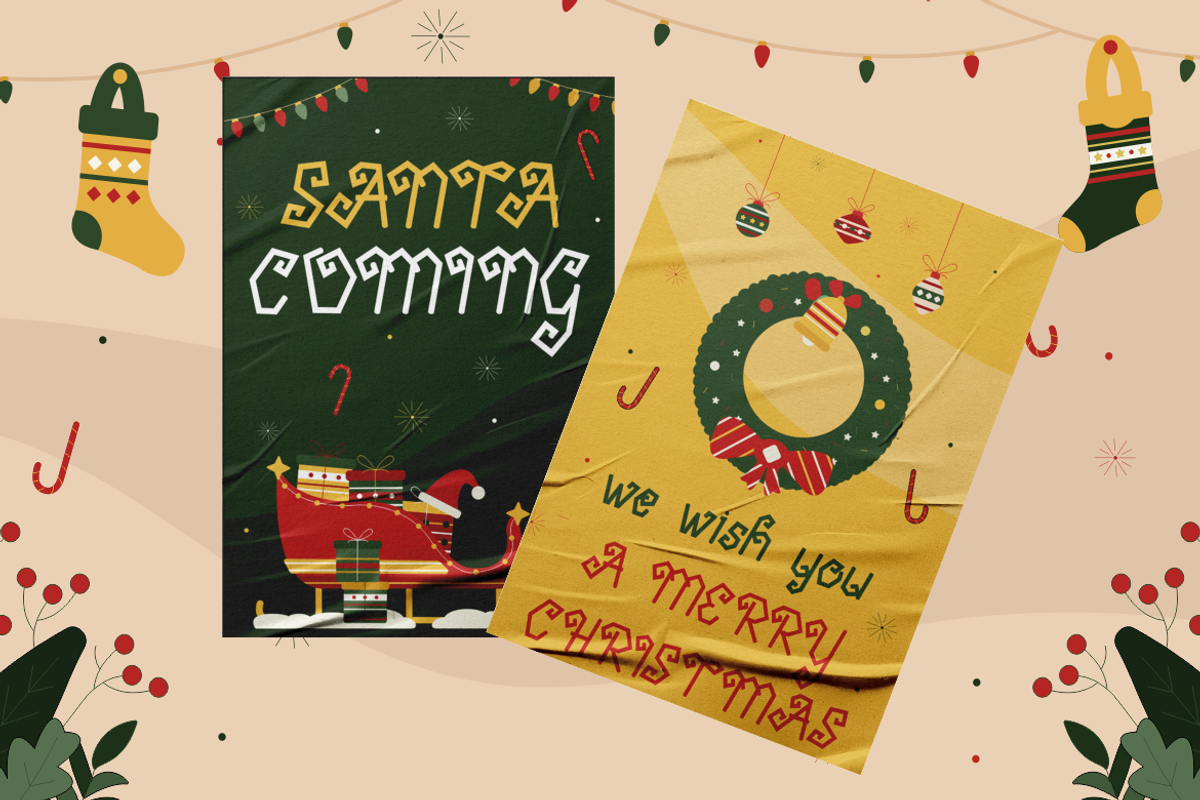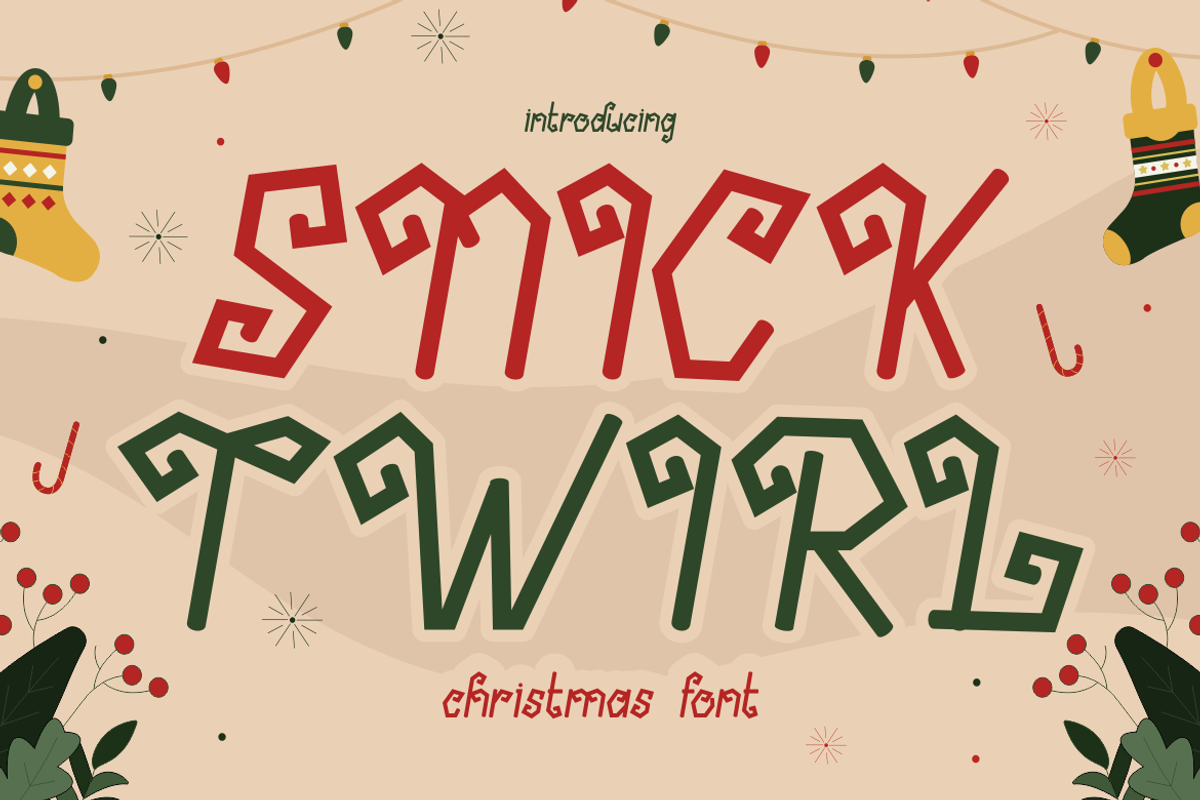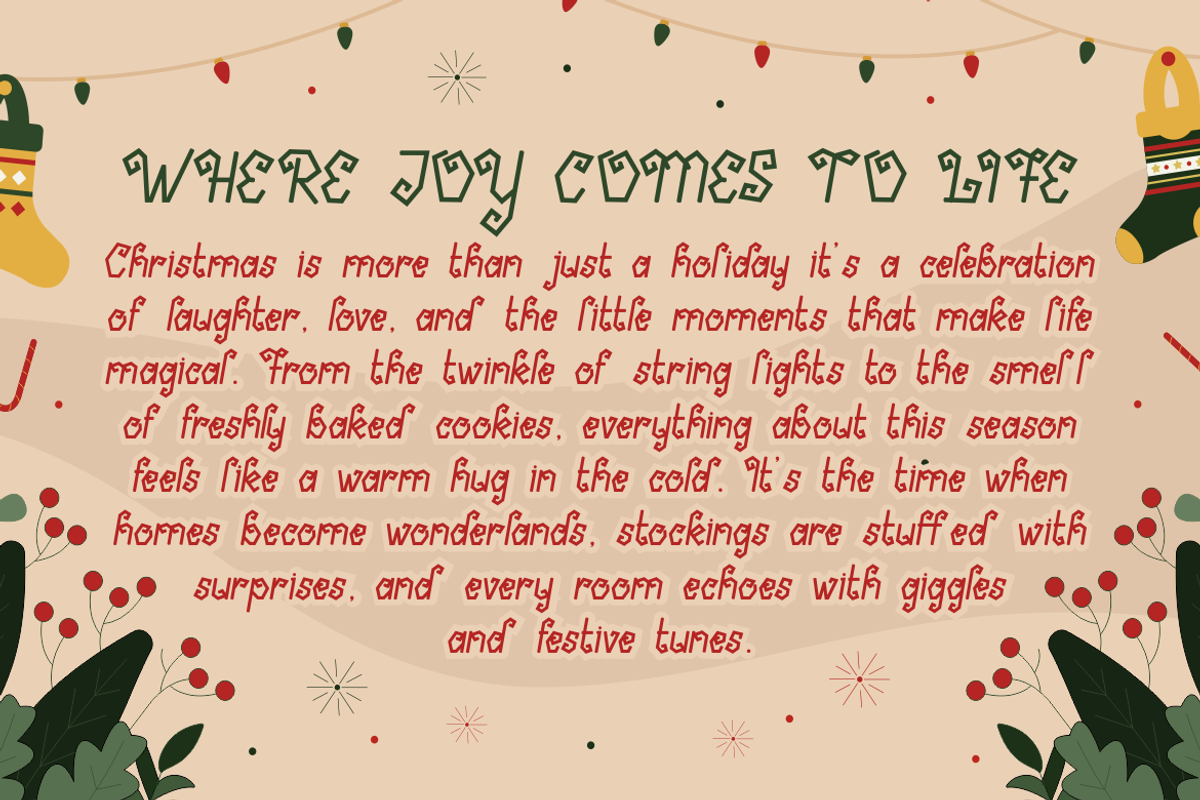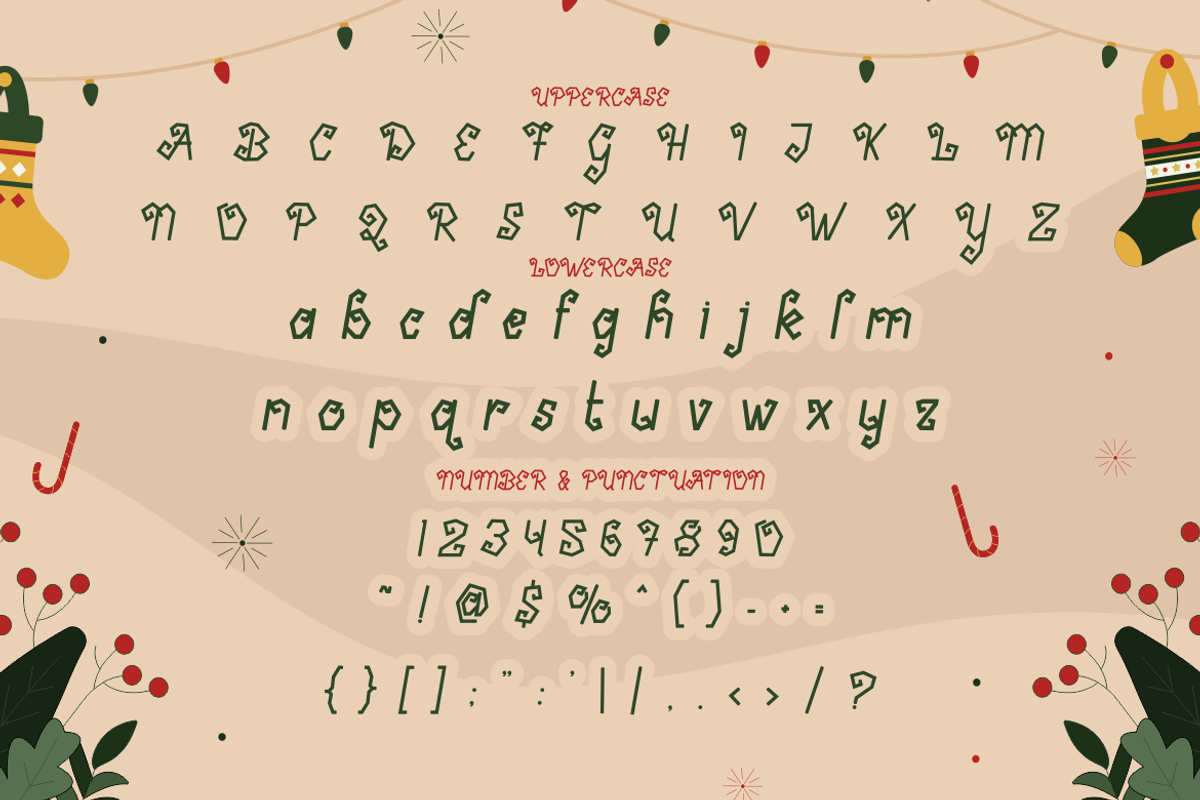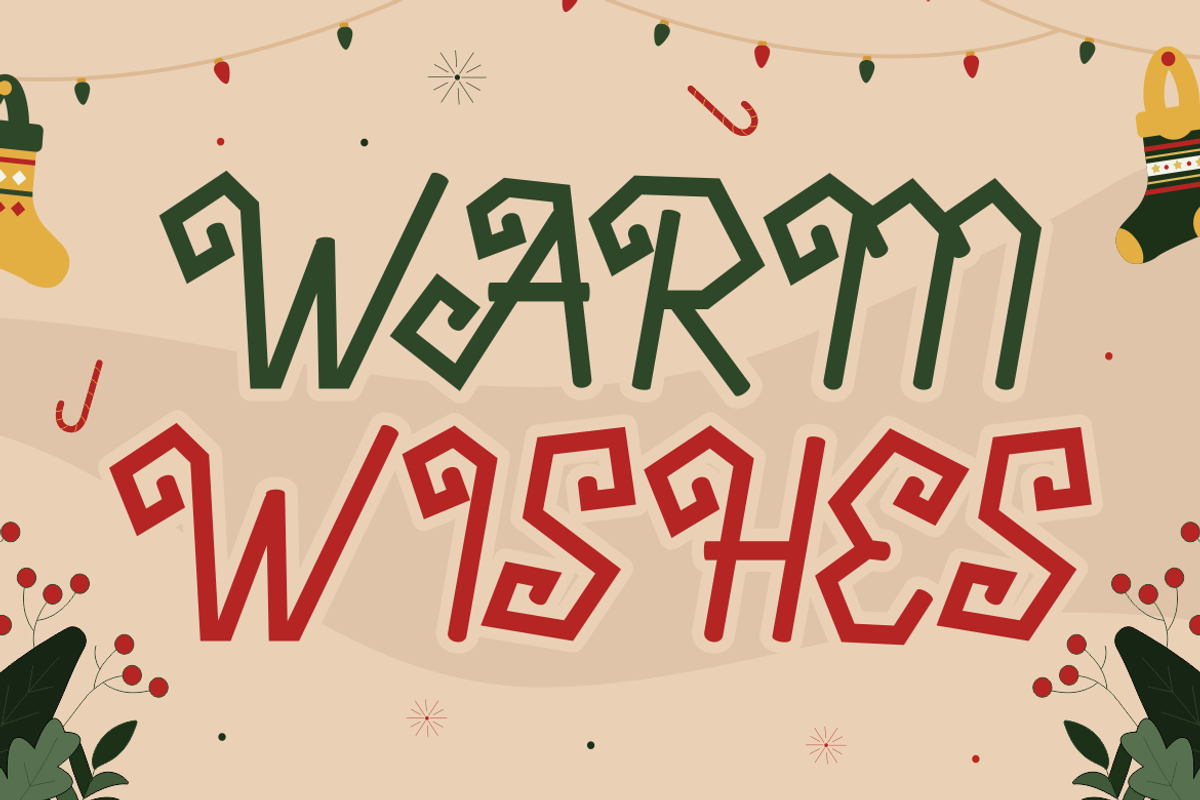
Snick Twirl - Christmas Font
Snick Twirl is a one-of-a-kind Christmas display font designed to wrap your message in cheer, warmth, and holiday magic. Each character twirls with whimsical energy, combining sharp geometric edges with playful curls that feel like candy canes come to life. The font uses bold strokes and stylized angles that mimic hand-drawn script yet remain structured enough for impactful display usage. Snick Twirl balances readability with creativity, making it the perfect typeface for festive branding, merry packaging, whimsical invitation cards, or joyful seasonal campaigns. Uppercase and lowercase letters are uniquely stylized, accompanied by a complete set of numerals and festive punctuation.
From its gingerbread-inspired layout to the mistletoe-ready charm of its swirled terminals, Snick Twirl is ideal for Christmas projects that demand something cheerful, yet distinctly original. Whether used in Christmas greeting cards, posters, children's books, or decorative titles, this font adds instant merriment and style. It also works seamlessly in New Year’s Eve announcements, cozy winter product labels, and Santa-themed marketing assets. With Snick Twirl, holiday design becomes more than seasonal—it becomes magical.